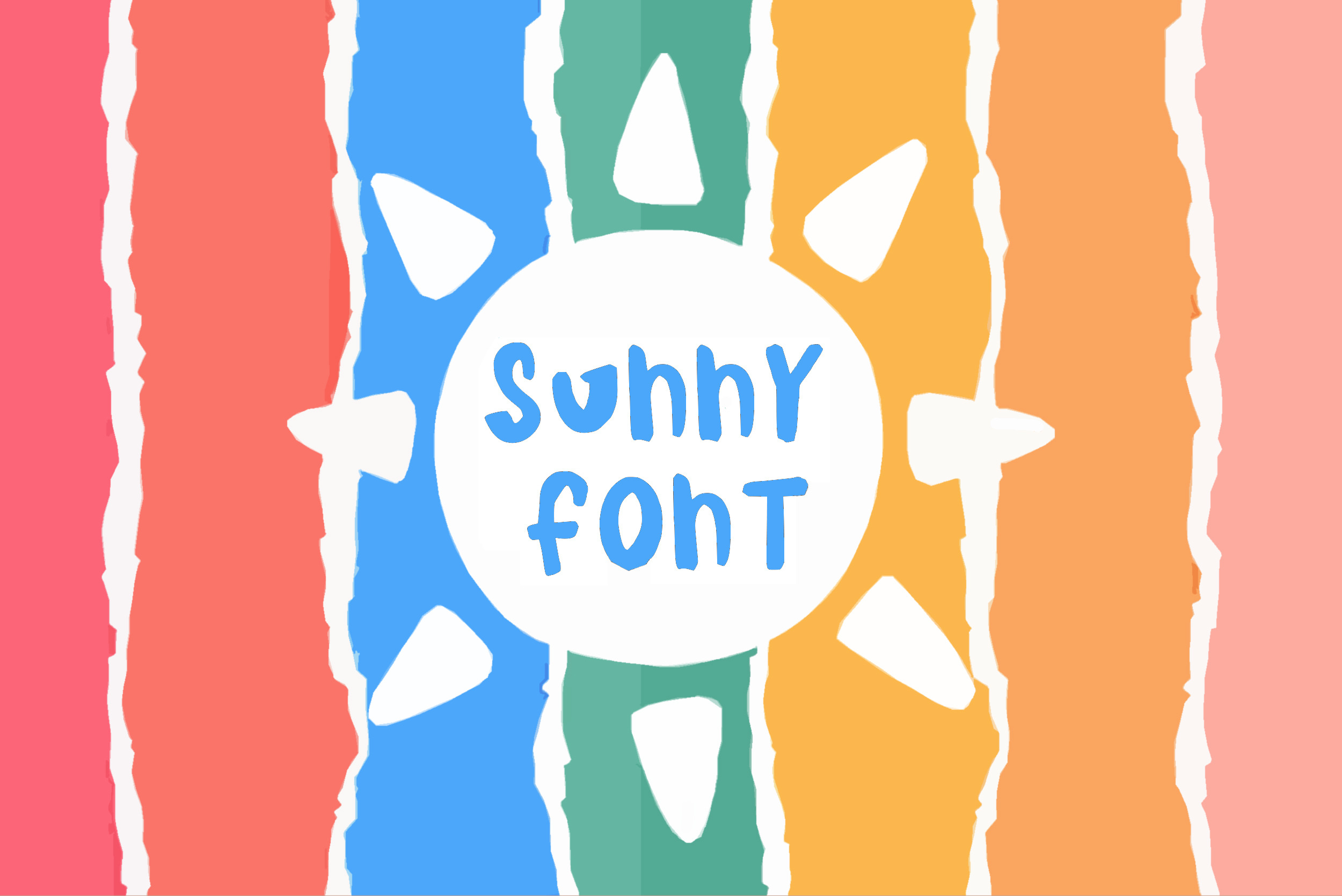
Sunny is a funny cute child font.
Sunny is a funny cute child TTF font perfect for any fun quirky design work! This font can be used for anything such as t-shirt designs, phone cases, greeting cards, invitations, mugs and so much more.